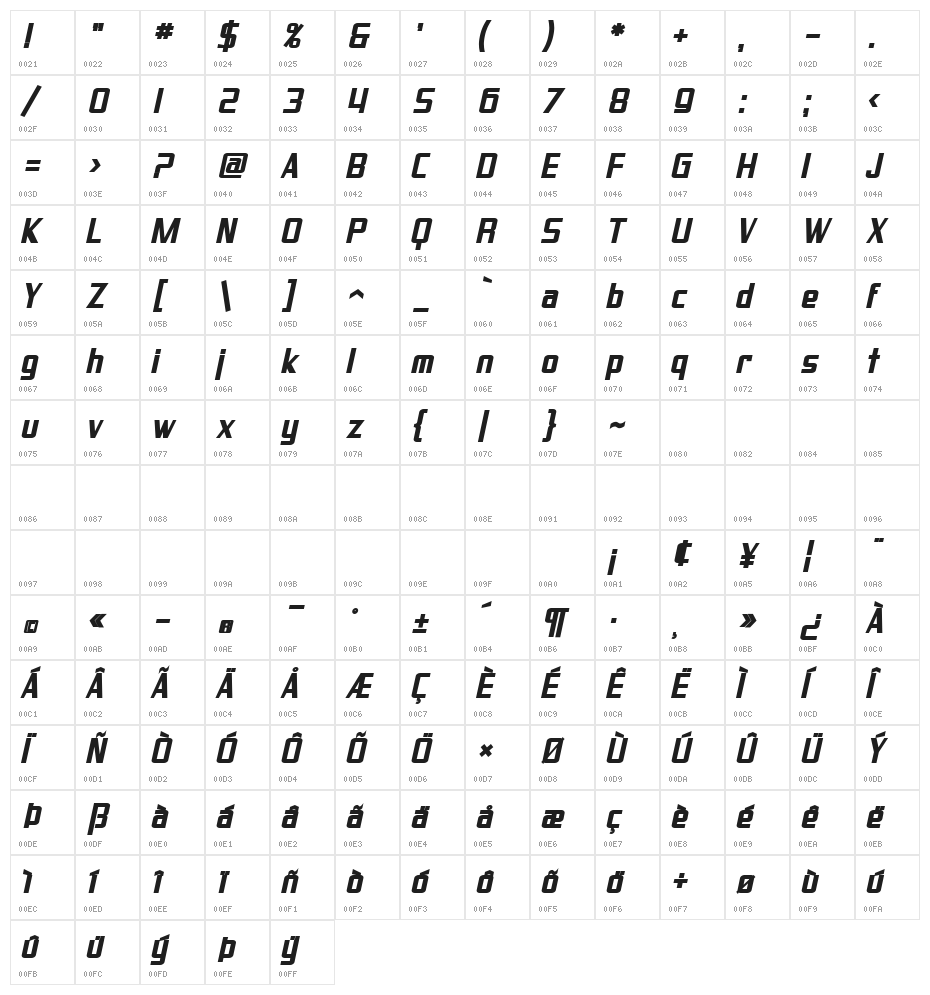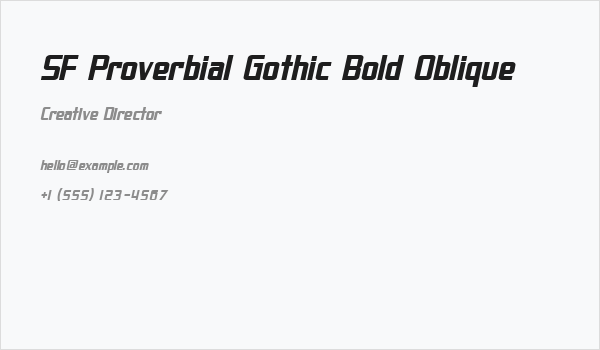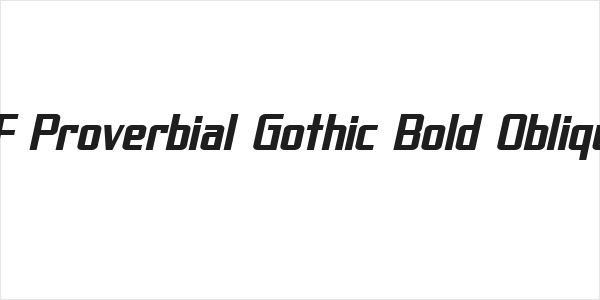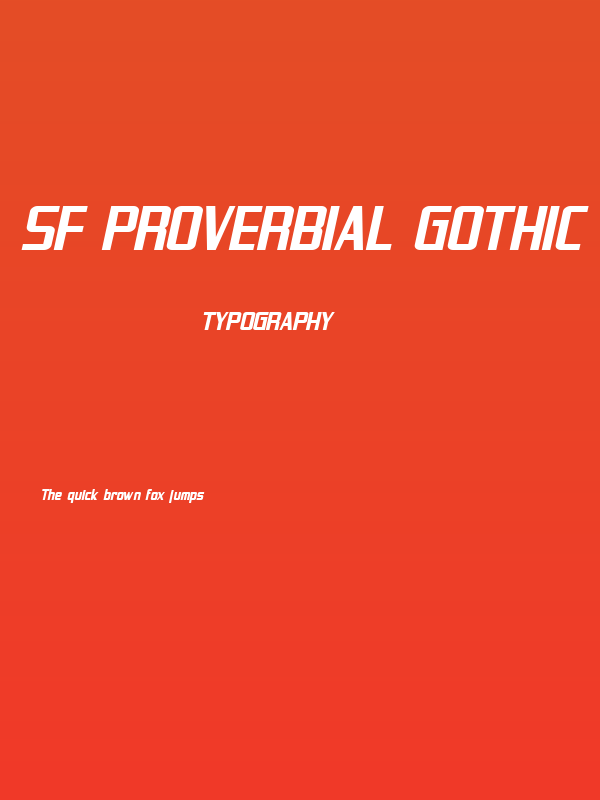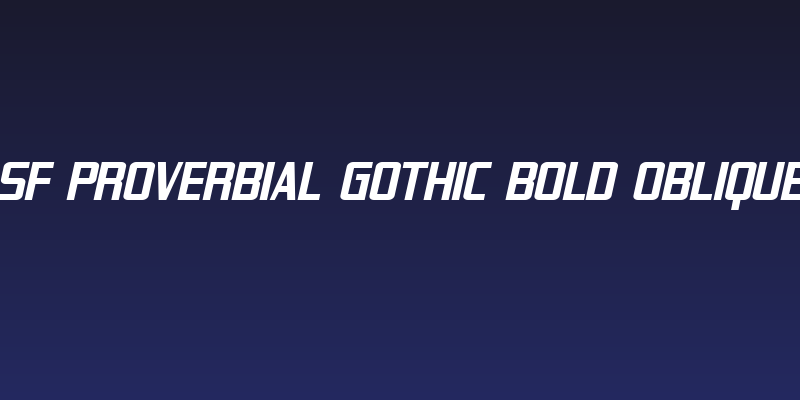
SF Proverbial Gothic Bold Oblique Font
SF Proverbial Gothic Bold Oblique Description
This font features a bold and oblique style, characterized by its strong, angular lines and a modern, dynamic appearance. The uppercase letters are tall and slightly condensed, while the lowercase letters maintain a consistent height, providing a uniform look. The numerals are distinct and easy to read, with a geometric influence that complements the overall design. The special characters are well-integrated, maintaining the font's cohesive style. This font's boldness and slant give it a sense of movement and energy, making it suitable for impactful designs.
| Proposed Projects | Ideal for branding, advertising, headlines, and any project requiring a bold, modern aesthetic. |